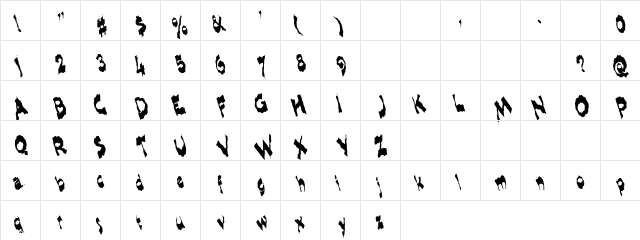
ShlopHappyReMix Regular Font Preview
ShlopHappyReMix Regular
ShlopHappyReMix Regular Font Details
| Version | 2.0 of this shloppy font |
Design Context for ShlopHappyReMix Typeface
ShlopHappyReMix is a composed and adaptable typeface that performs quietly and consistently across a wide range of design contexts.